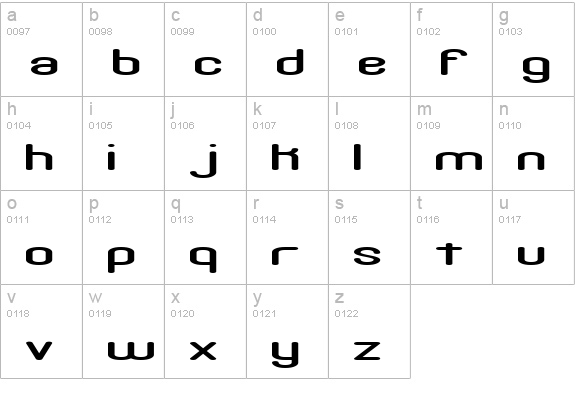
Crackdown R2 BRK Font Details
Crackdown R2 BRK font is a modern and edgy typeface that exudes strength and boldness. With its sharp angles and distinct style, this font is perfect for making a statement in your designs. Whether you're creating posters, logos, or headlines, Crackdown R2 BRK font will command attention and leave a lasting impression. The best part? This eye-catching font is available for free download at FontsMarket.com. Don't miss out on the opportunity to add Crackdown R2 BRK to your font collection and take your design projects to the next level. With its unique look and versatility, this font is sure to become a go-to choice for all your creative endeavors. Download it now and unleash your creativity with Crackdown R2 BRK font.